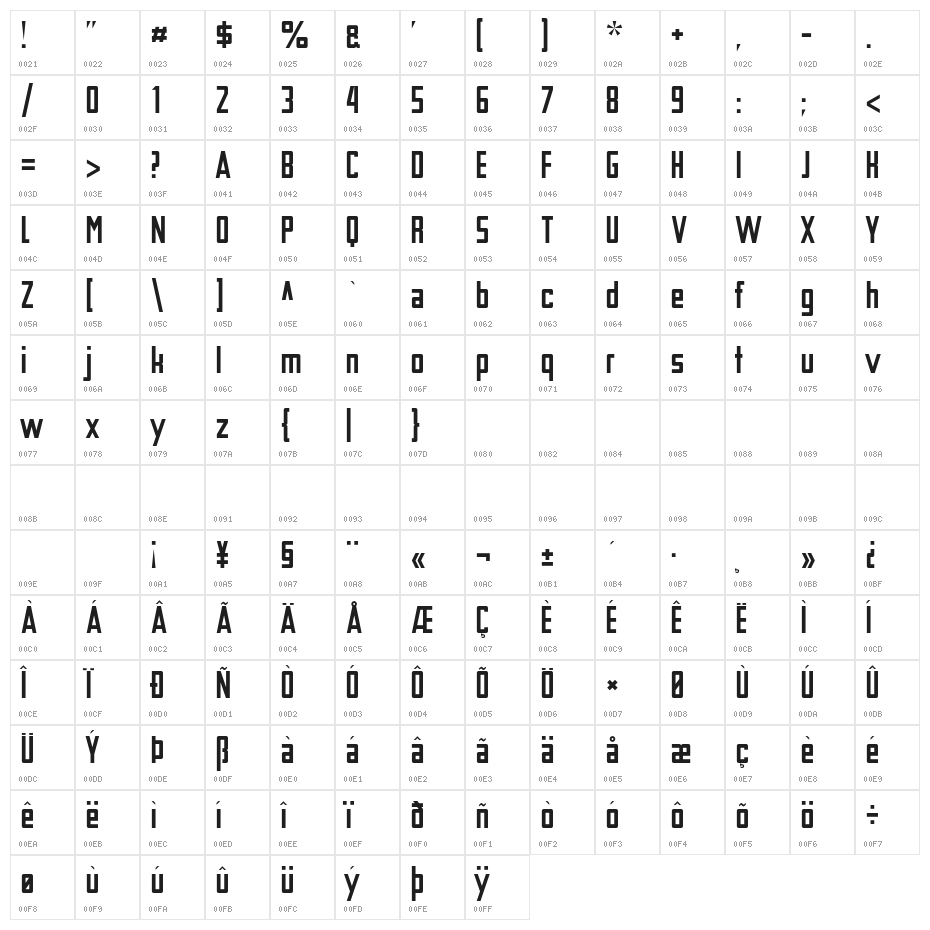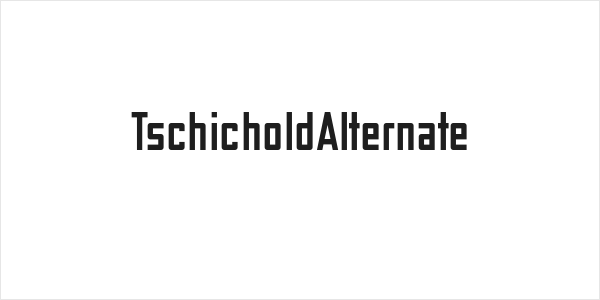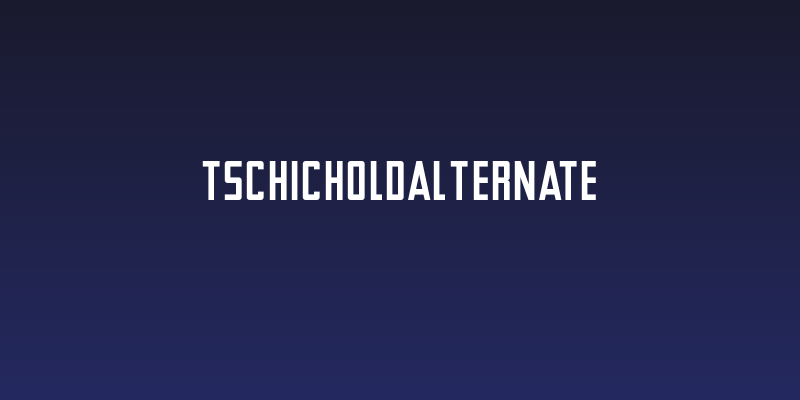
TschicholdAlternate Font
TschicholdAlternate Description
This font features a bold and geometric design with a strong presence. The characters are constructed with straight lines and sharp angles, giving it a modern and industrial feel. The uppercase letters are tall and narrow, while the lowercase letters maintain a consistent height, creating a uniform appearance. The numerals are clear and distinct, matching the overall style of the alphabet. Special characters are designed with the same geometric precision, ensuring consistency across all glyphs. This font is highly legible and makes a striking impact, suitable for a variety of design applications.
Proposed ProjectsIdeal for branding, posters, headlines, and signage where a strong, modern look is desired.